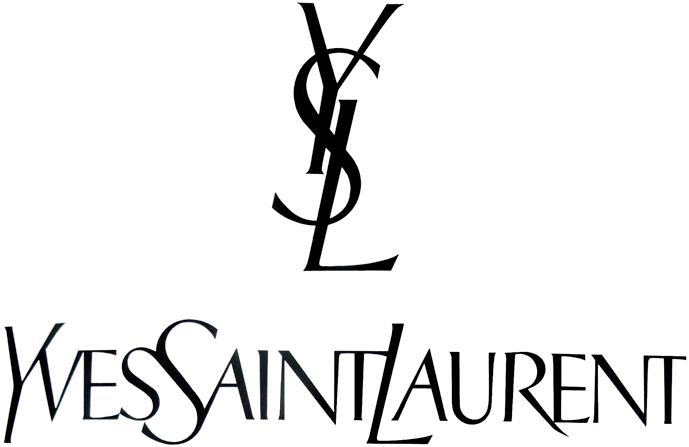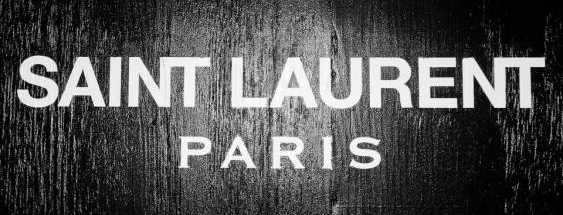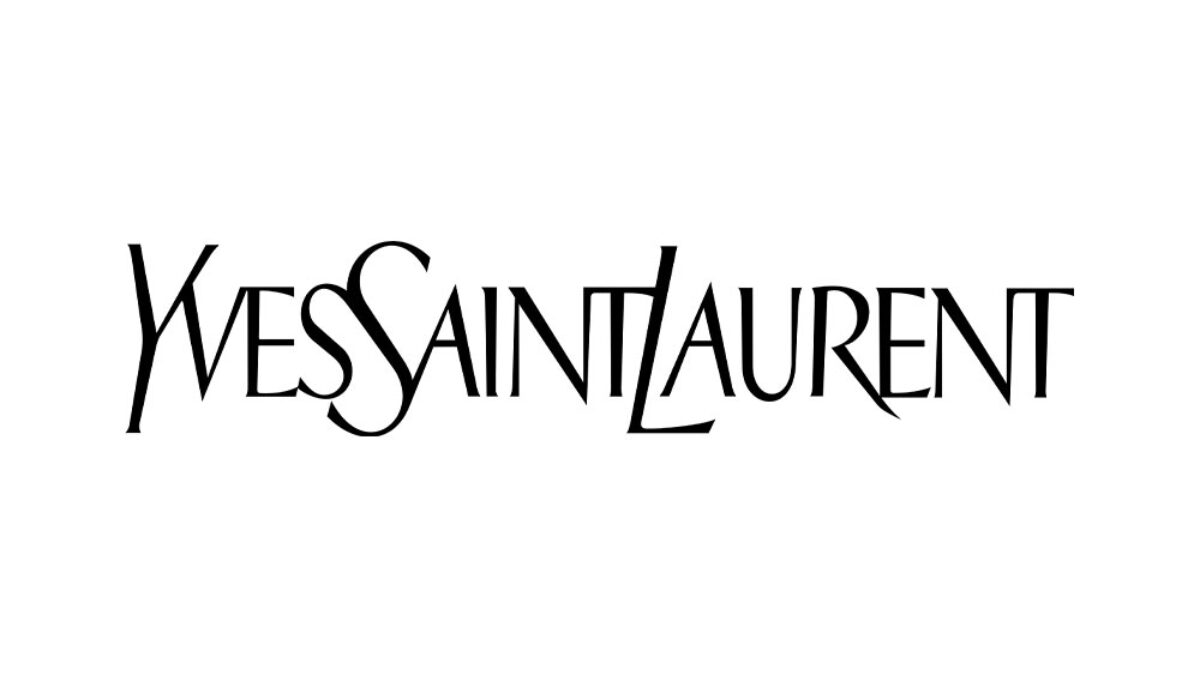
Its name is couture font.
Saint laurent font generator. Download free yves saint laurent original vector logo and icons in ai, eps, cdr, svg, png formats. It is gudrun zapf von hesse’s interpretation of baroque adornment engravings. Laurent is free for personal use only.
Font meme is a fonts & typography resource. The original font used at the beginning of ysl logo history was a custom font that contained a unique blend of a serif and san serif font connected by curving letters. The closest font you can get for the yves saint laurent logo is donatello alternates font.
You can use the laurent to create interesting designs, covers, shop and store name and logos. Smaragd is a light and gracious font especially appropriate for titles and cards. I found the font used by yves saint laurent.
Yves saint laurent ysl (also known as saint laurent in paris) is a luxury fashion house. Yves saint laurent original logo vector. ️ customize your own preview on ffonts.net to make sure it`s the right one for your designs.
Laurent is the perfect font for all your fun designs. Font designed by monotype type drawing office and free for personal. What font does yves saint laurent use?
The yves saint laurent font is helvetica neue bold and the primary brand colors are black and white. This type family can be used both for personal and commercial works such as online/offline magazines and/or books, posters, photography. Maybe it’s a different idea based on the first letters.
Saint laurent’s logo in helvetica neue bold, for example, looks as sophisticated stitched on the side of a purse as it does on a jacket label. The closest free font you can get is vera humana 95 font. Slamxhype posted an article about streetwear and high fashion houses and their choice in fonts.
The sans serif created for yves saint laurent beauté, singulier is a geometric typeface inspired by the monogram and logotype yves saint laurent created. In diverse scripts, such as arabic, greek, cyrillic, and latin, among many. I have an obsession over fonts and i will tell you if the kerning in your logo is off.
Facebookpageusa@gmail.com[/email]]hi i found the font used by yves saint laurent. The sans serif created for yves saint laurent beauté, singulier is a geometric typeface inspired by the monogram and logotype yves saint laurent created by cassandre in the early 60’s. This sans serif font family comes in two styles including bold and bold italic.